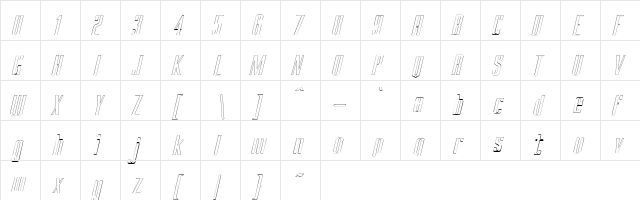
BRANCHE Outline Italic
| Foundry | TypoBureau Studio |
| Designer | TypoBureau Studio |
Design Context for BRANCHE Typeface
BRANCHE brings ornamental detail and strong personality to headlines and identities, where visual impact matters more than quiet functionality. Its italic angle brings a sense of urgency and motion to the letterforms.
Font Pairing: Pair with a clean neutral sans-serif for body copy to let BRANCHE's character lead without overwhelming the composition.
Pro Tip: Treat BRANCHE as the centrepiece of your typographic hierarchy. One strong heading set in a decorative face can carry an entire layout.